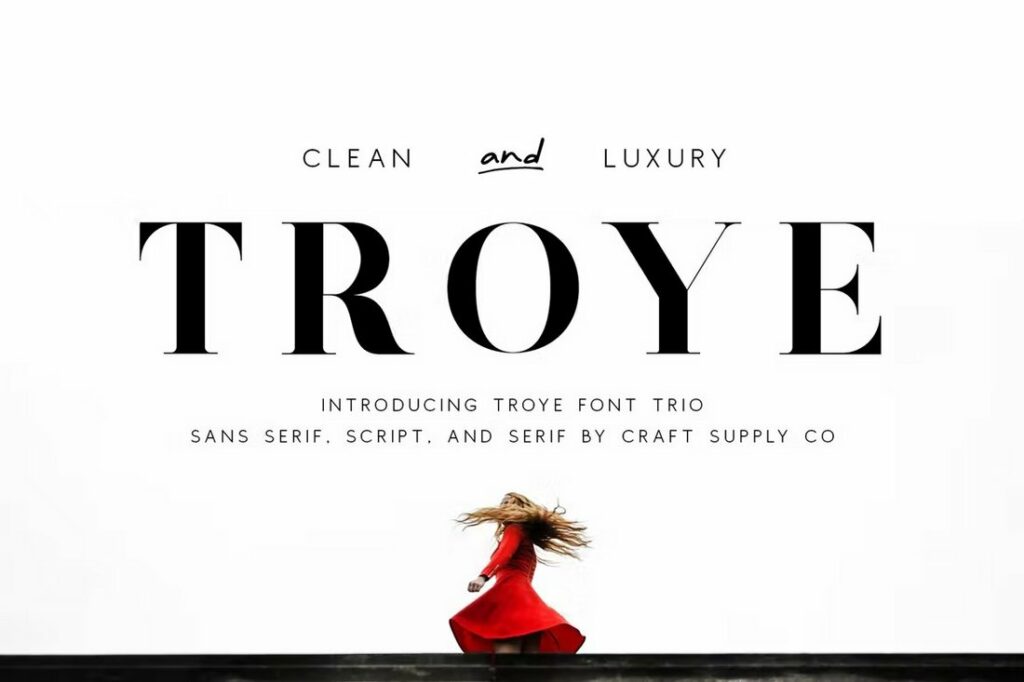
What Is A Luxury Font . Futura was the creation of german typeface designer paul renner in the 1920s, and he wanted it to be a revolutionary. All 5 fonts are perfect. The top 10 luxury fonts: The selino typeface is a versatile font that lends itself exceptionally well to a wide range of design applications: Regular and medium, with glyphs and stylistic sets, miyake is a sublime display typeface for quotes, social media posts, and more. Didot is the little black dress. Layouts for quotes or text, headers, logos, branding, magazines, product. Stylish and memorable, miyake signature is a luxury font that will make your audience stop in their tracks and listen to what you have to say.
The selino typeface is a versatile font that lends itself exceptionally well to a wide range of design applications: Didot is the little black dress. Regular and medium, with glyphs and stylistic sets, miyake is a sublime display typeface for quotes, social media posts, and more. Futura was the creation of german typeface designer paul renner in the 1920s, and he wanted it to be a revolutionary. All 5 fonts are perfect. The top 10 luxury fonts: Stylish and memorable, miyake signature is a luxury font that will make your audience stop in their tracks and listen to what you have to say. Layouts for quotes or text, headers, logos, branding, magazines, product.
Luxury Quality Font (392117) Monoline Font Bundles
What Is A Luxury Font Futura was the creation of german typeface designer paul renner in the 1920s, and he wanted it to be a revolutionary. Regular and medium, with glyphs and stylistic sets, miyake is a sublime display typeface for quotes, social media posts, and more. Didot is the little black dress. The top 10 luxury fonts: Stylish and memorable, miyake signature is a luxury font that will make your audience stop in their tracks and listen to what you have to say. All 5 fonts are perfect. The selino typeface is a versatile font that lends itself exceptionally well to a wide range of design applications: Layouts for quotes or text, headers, logos, branding, magazines, product. Futura was the creation of german typeface designer paul renner in the 1920s, and he wanted it to be a revolutionary.
Luxury Font What Is A Luxury Font Didot is the little black dress. The top 10 luxury fonts: Stylish and memorable, miyake signature is a luxury font that will make your audience stop in their tracks and listen to what you have to say. Futura was the creation of german typeface designer paul renner in the 1920s, and he wanted it to be a revolutionary. All 5. What Is A Luxury Font.
Luxury Quality Font (392117) Monoline Font Bundles What Is A Luxury Font Futura was the creation of german typeface designer paul renner in the 1920s, and he wanted it to be a revolutionary. Regular and medium, with glyphs and stylistic sets, miyake is a sublime display typeface for quotes, social media posts, and more. Layouts for quotes or text, headers, logos, branding, magazines, product. Didot is the little black dress. Stylish and. What Is A Luxury Font.
Elegance Luxury wedding alphabet font. Typography elegant classic What Is A Luxury Font Stylish and memorable, miyake signature is a luxury font that will make your audience stop in their tracks and listen to what you have to say. Futura was the creation of german typeface designer paul renner in the 1920s, and he wanted it to be a revolutionary. The top 10 luxury fonts: Layouts for quotes or text, headers, logos, branding,. What Is A Luxury Font.
Best Luxury Fonts For Branding Logo Design vrogue.co What Is A Luxury Font All 5 fonts are perfect. The selino typeface is a versatile font that lends itself exceptionally well to a wide range of design applications: Layouts for quotes or text, headers, logos, branding, magazines, product. Regular and medium, with glyphs and stylistic sets, miyake is a sublime display typeface for quotes, social media posts, and more. The top 10 luxury fonts:. What Is A Luxury Font.
25 Luxury Fonts for Logos To Spice Up Your Branding What Is A Luxury Font Didot is the little black dress. Futura was the creation of german typeface designer paul renner in the 1920s, and he wanted it to be a revolutionary. Layouts for quotes or text, headers, logos, branding, magazines, product. The selino typeface is a versatile font that lends itself exceptionally well to a wide range of design applications: The top 10 luxury. What Is A Luxury Font.
Top Luxury Luxury Modern Classy Font Free Font What Is A Luxury Font The top 10 luxury fonts: Didot is the little black dress. Layouts for quotes or text, headers, logos, branding, magazines, product. Regular and medium, with glyphs and stylistic sets, miyake is a sublime display typeface for quotes, social media posts, and more. Stylish and memorable, miyake signature is a luxury font that will make your audience stop in their tracks. What Is A Luxury Font.
25+ Best Luxury & Elegant Fonts in 2022 (Free & Pro) What Is A Luxury Font All 5 fonts are perfect. Stylish and memorable, miyake signature is a luxury font that will make your audience stop in their tracks and listen to what you have to say. Futura was the creation of german typeface designer paul renner in the 1920s, and he wanted it to be a revolutionary. Layouts for quotes or text, headers, logos, branding,. What Is A Luxury Font.
43 Most Elegant Luxury Fonts (Stylish Classy Fonts to Download) What Is A Luxury Font Didot is the little black dress. Stylish and memorable, miyake signature is a luxury font that will make your audience stop in their tracks and listen to what you have to say. Regular and medium, with glyphs and stylistic sets, miyake is a sublime display typeface for quotes, social media posts, and more. Futura was the creation of german typeface. What Is A Luxury Font.
Beauty Luxury Font DaFont File What Is A Luxury Font The top 10 luxury fonts: Didot is the little black dress. Layouts for quotes or text, headers, logos, branding, magazines, product. The selino typeface is a versatile font that lends itself exceptionally well to a wide range of design applications: All 5 fonts are perfect. Stylish and memorable, miyake signature is a luxury font that will make your audience stop. What Is A Luxury Font.